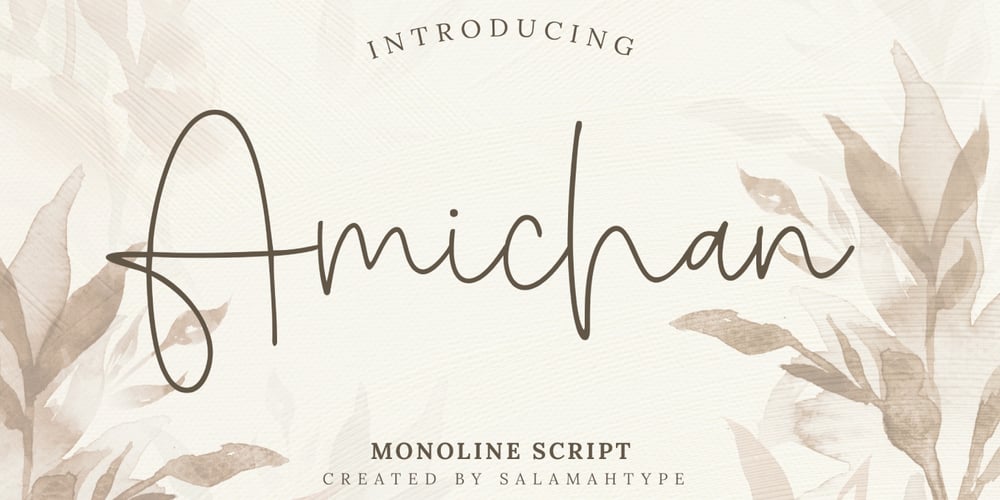
Amichan Font Family was designed by Aswangga Sadike and published by Salamahtype. Amichan contains 1 styles and family package options. Introducing our script “Amichan” – An elegant and beautiful monoline typeface is perfect for websites, modern logos, brand identities, social media, quotes, wedding invitations and anything you want!Features : Uppercase & lowercase Punctuation & symbol Alternates Ligatures PUA Encoded Multilingual characters